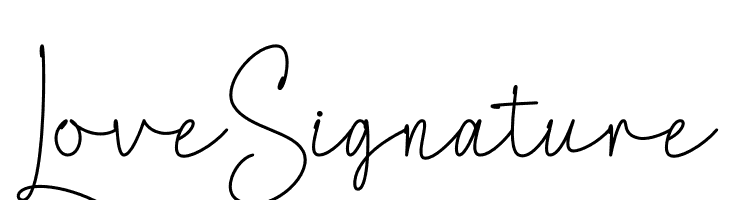
A playful, bold font with rounded characters and a whimsical style.
A futuristic, geometric font with hollow spaces and a modern digital aesthetic.
A decorative font with festive, mask-like embellishments on each letter.
A bold, angular font with a decorative, ancient script-like appearance.
A light, semi-condensed, modern sans-serif with clean lines.
A bold, angular font with a geometric and modern style.
A modern, rounded font with a playful and approachable style.
A whimsical, handwritten font with playful loops and swirls.
A tall, slender handwritten font with dynamic, flowing strokes.
A fluid and elegant cursive script with a handwritten appearance.
设计师偏爱 Si Cantik, Jost_Futuristic_Style, New Orleans Fete, Draconiano Regular and Noto Sans Khmer SemiCondensed Light,因为其造型干净、适用范围广—— 从品牌识别到落地页、海报都能胜任。